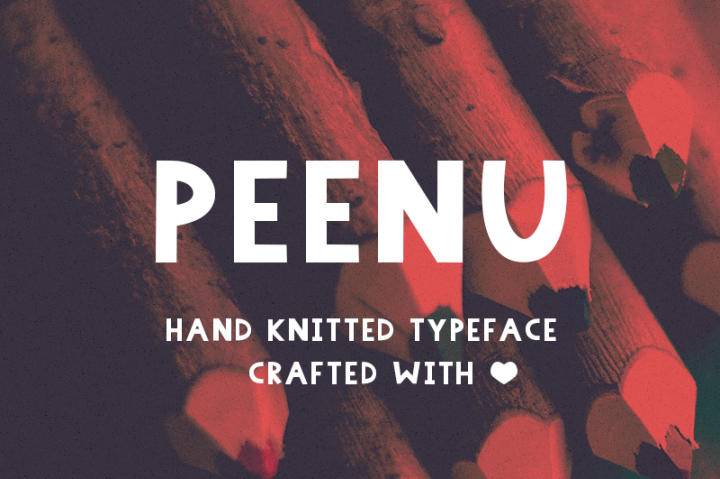
Free Font Peenu Typeface
Download and enjoy this free font peenu typeface. Cool typeface to showcase your designs in a modern way. Go give some love to The Hungry JPEG for creating this top-notch free font. Amaze your fellow designers and create stunning designs with this beautiful font.